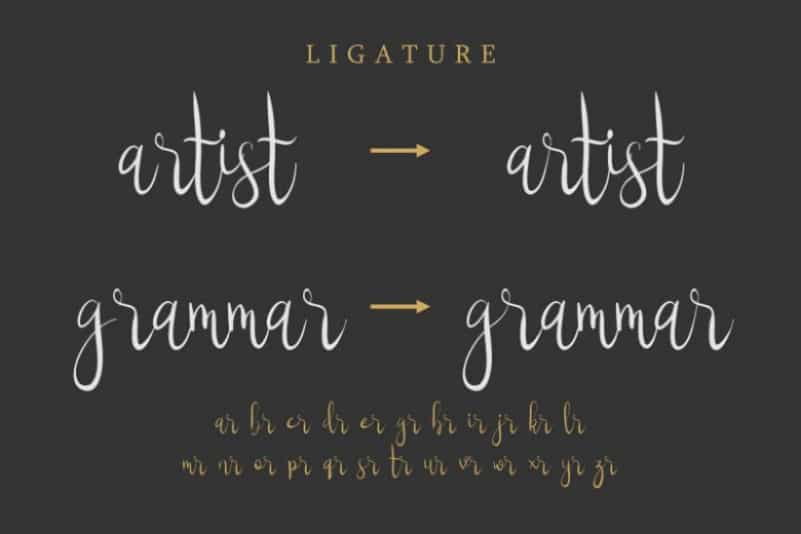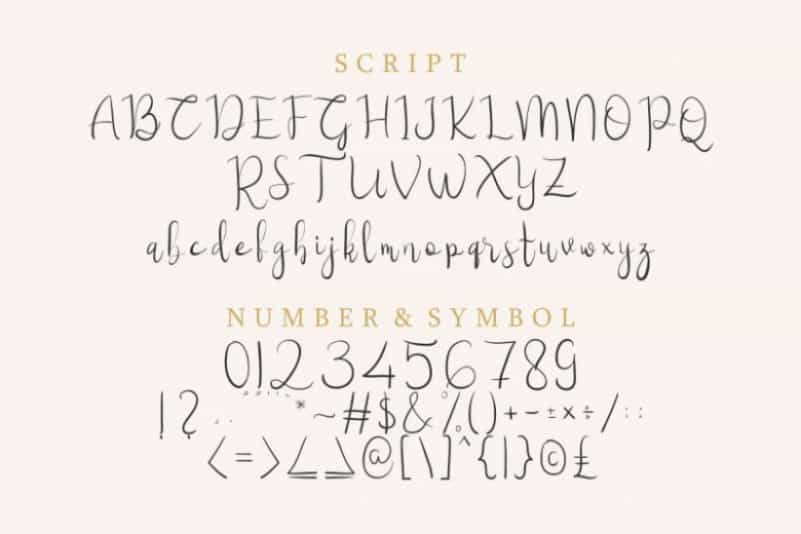
Hilliard Script Font, our most recent script typeface. It’s a new decorative script font with calligraphy style. It has a distinctive, graceful and fashionable glyph. This typeface will run on both PC & Mac with easy installations. Can work in Adobe Illustrator, Adobe Photoshop, Adobe InDesign, even can work on Microsoft Word.